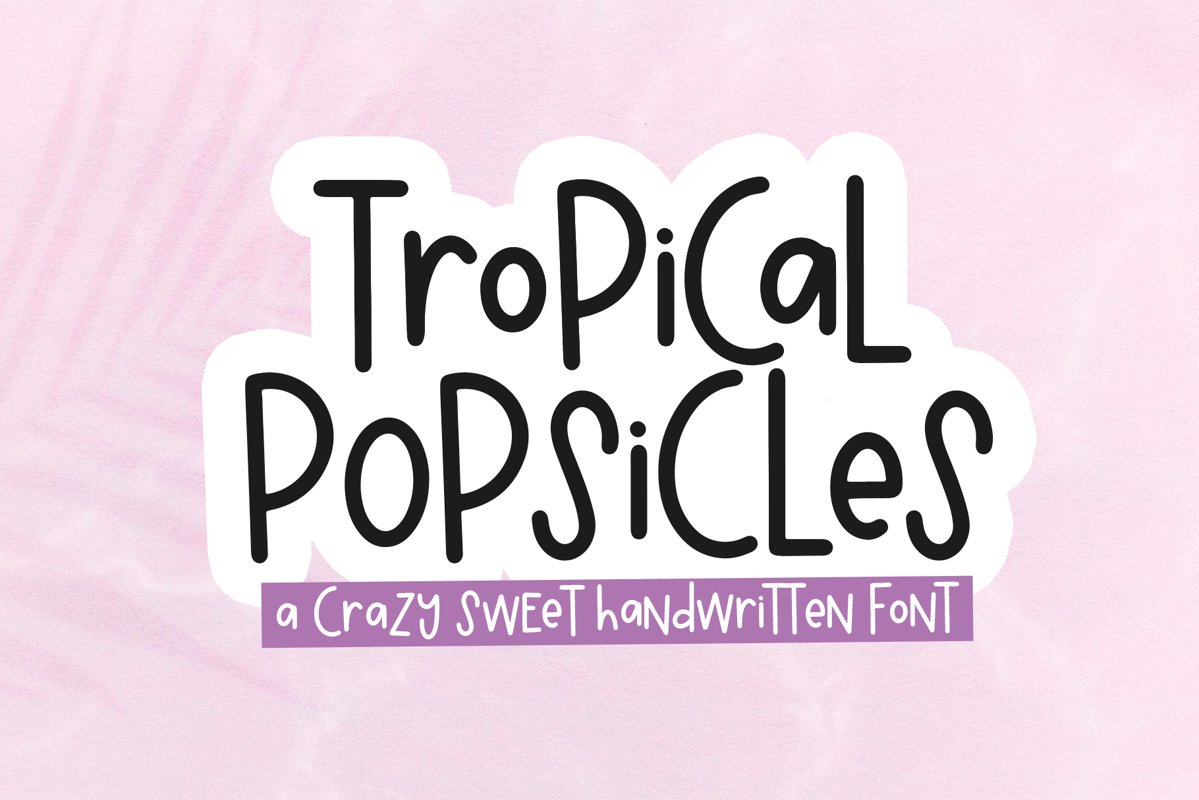
Tropical Popsicles is a fun and quirky handwritten font!
This font is perfect for shirt designs, stickers, branding, children's designs, svg designs, blogs, logos, invitations and more!